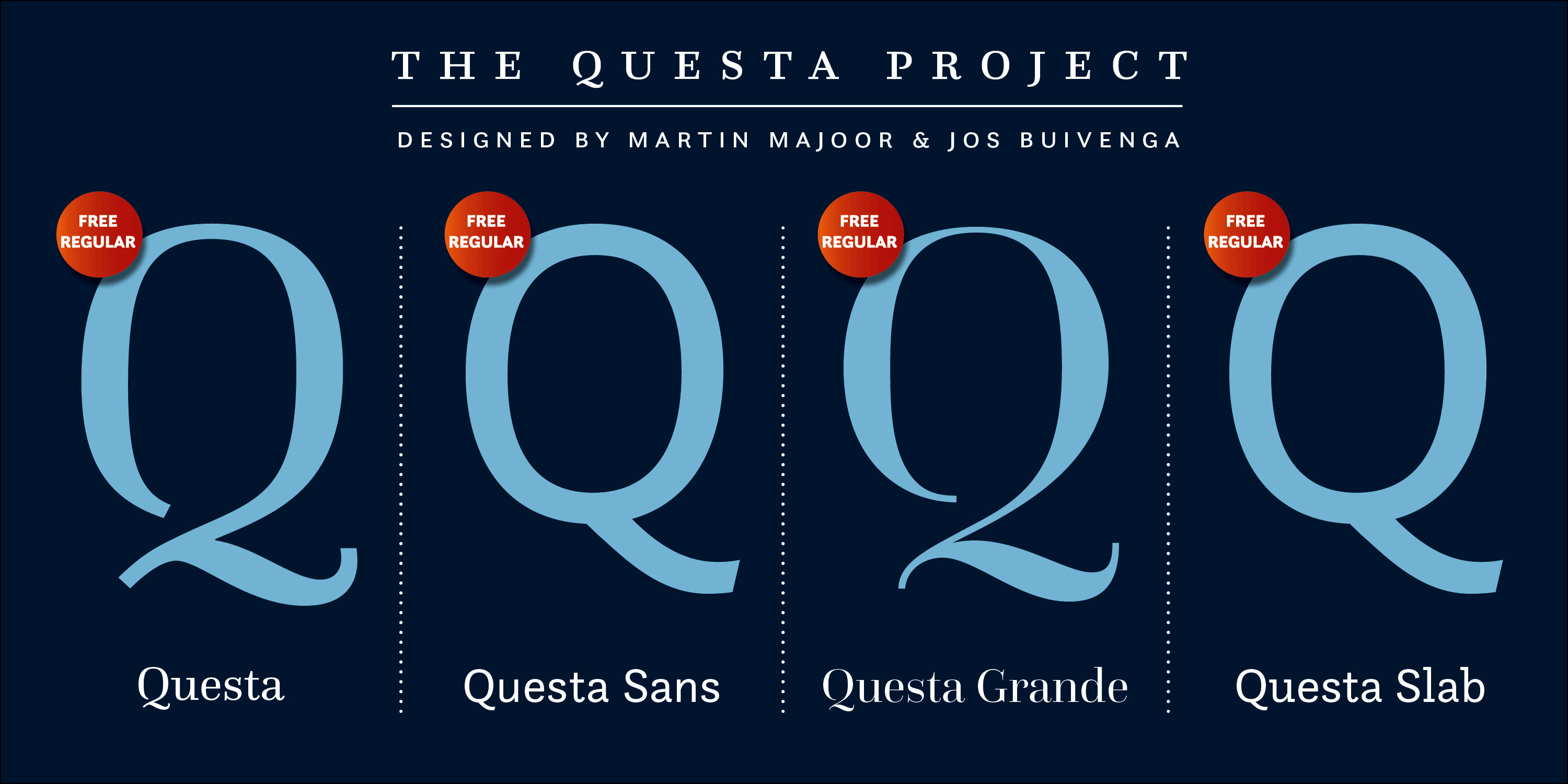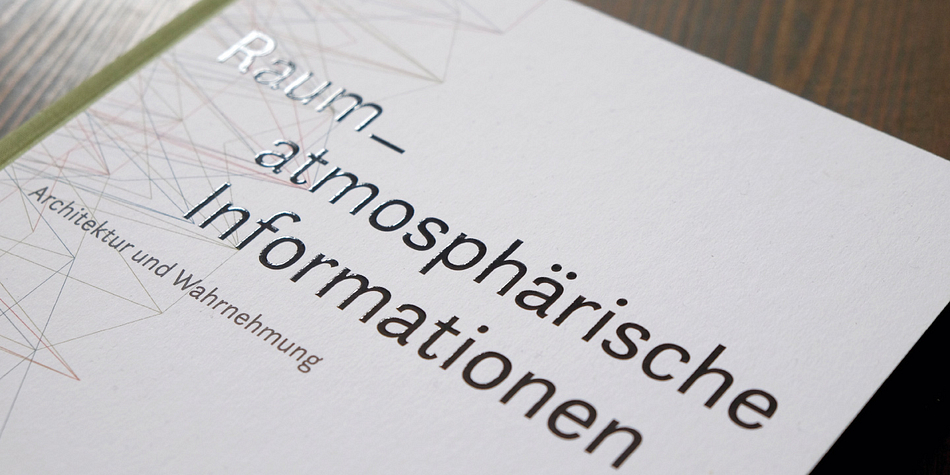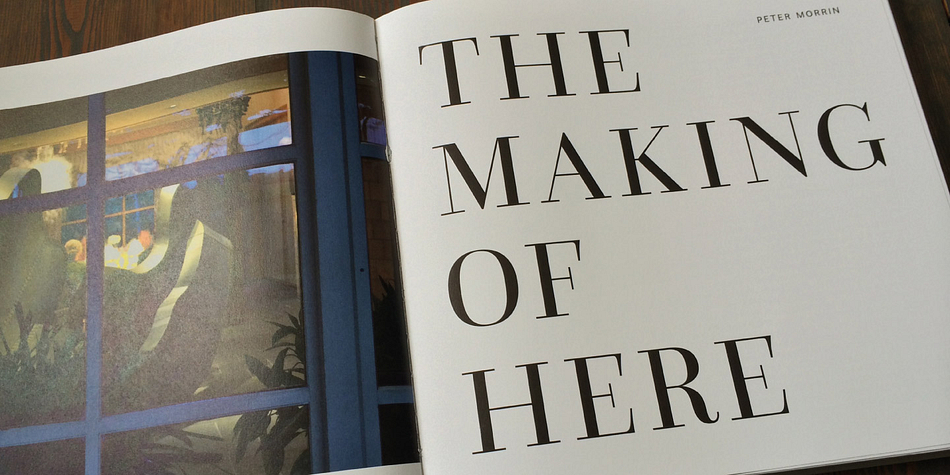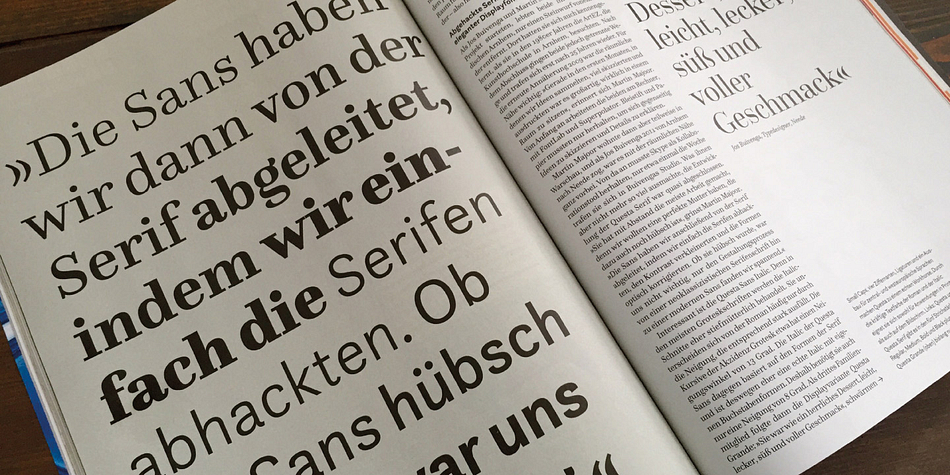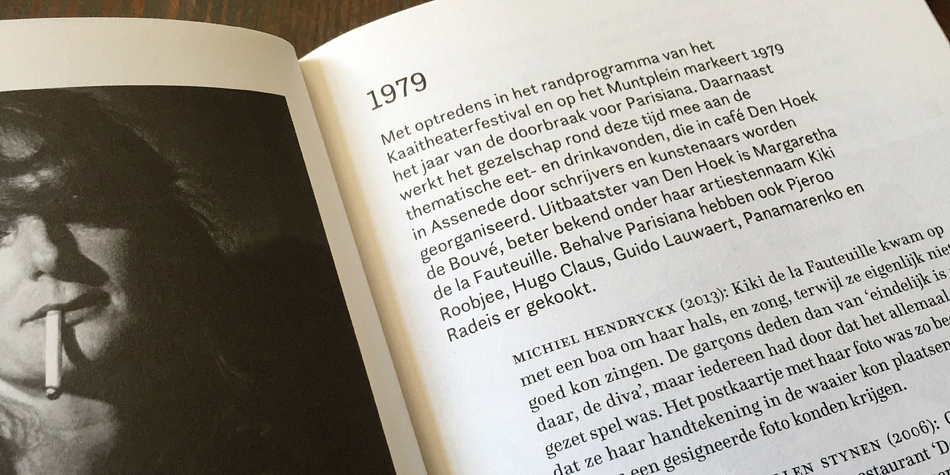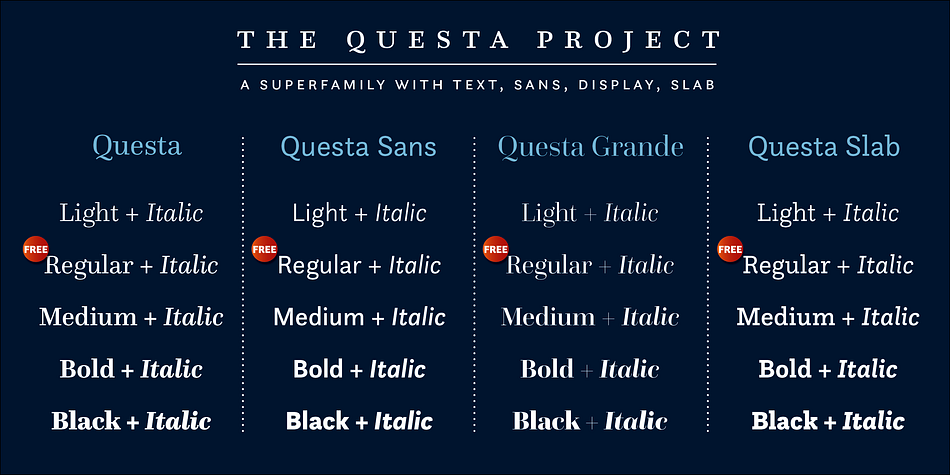
Designed by Jos Buivenga and Martin Majoor, Questa Complete is a sans serif, serif and slab serif font collection published by The Questa Project.
The Questa Project is a typeface superfamily, containing a serif, a matching sans and a matching display version. The inclusion of small caps, four sets of figures, ligatures and extended language support makes Questa a real workhorse.
The Questa Project is a collaborative type design project by Jos Buivenga (exljbris) and Martin Majoor.